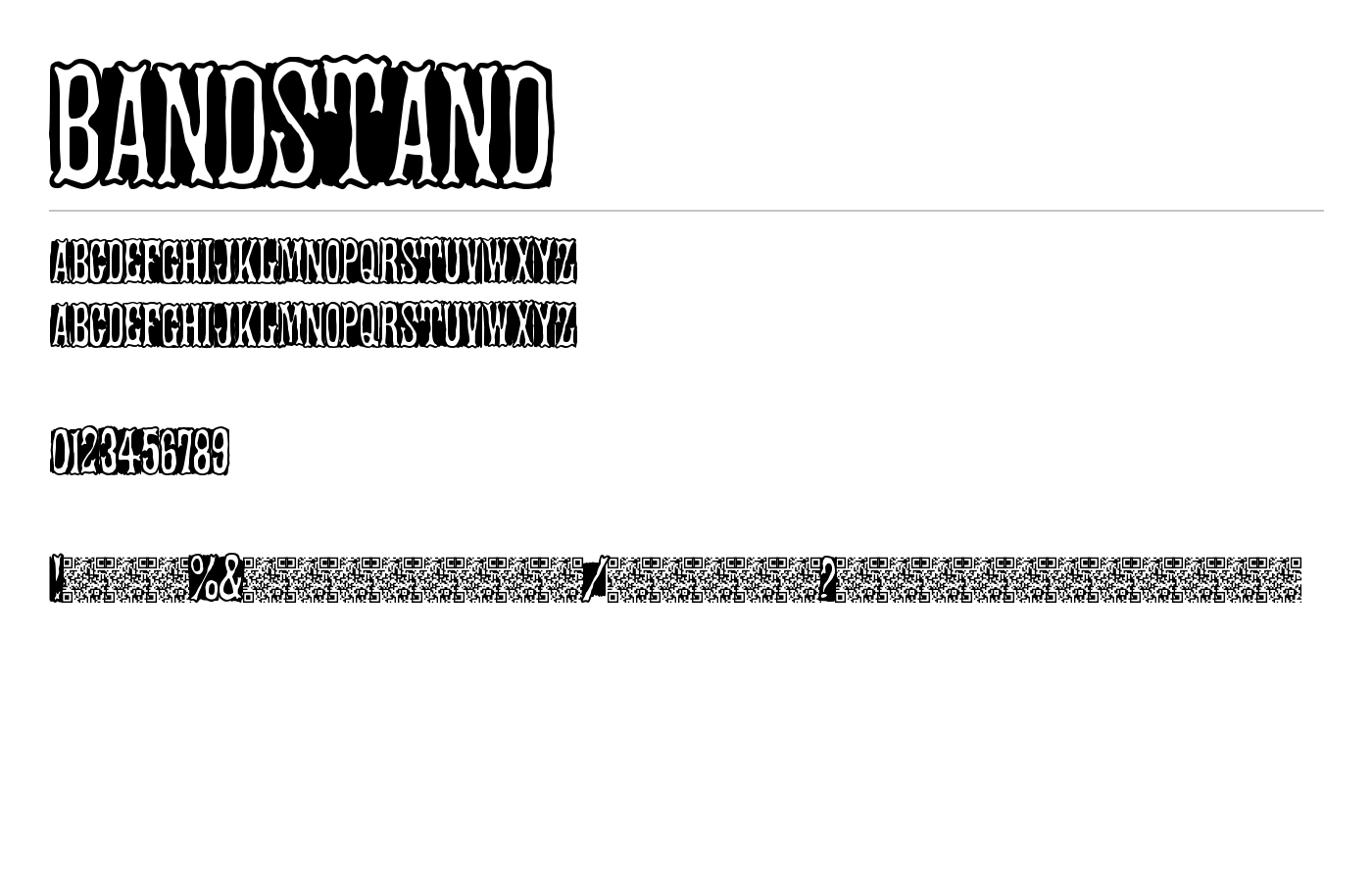
BandStand is a bold, condensed serif font with a distinctly vintage Western feel, characterized by its thick and thin stroke contrast and decorative, slightly jagged serifs. This eye-catching typeface works best for headlines, posters, and branding that aim to evoke a nostalgic, rustic, or theatrical mood, making it ideal for entertainment, rodeo, or retro-themed designs. Its dramatic style adds character and flair when used in display settings, but it is less suited for body text due to its strong visual weight and detail.
BandStand Font
About BandStand Font